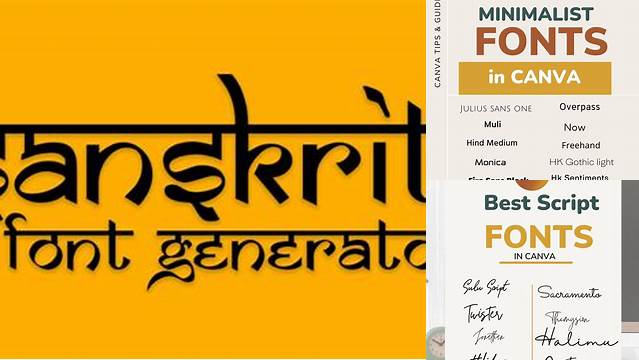
Sanskrit Fonts In Canva: A Comprehensive Guide
Hey guys! Ever wanted to add a touch of the ancient and mystical to your designs? Well, you're in the right place! We're diving deep into the world of Sanskrit fonts in Canva. Canva is an amazing tool for creating all sorts of designs, but sometimes finding the perfect font can be a bit of a quest. Don't worry, we've got you covered! This guide will walk you through everything you need to know about using Sanskrit fonts in your designs, so let's get started!
1. Introduction to Sanskrit and Its Significance
Sanskrit, often called the "language of the gods," is one of the oldest languages in the world and holds immense cultural and historical significance. Understanding its roots and importance can help you appreciate the beauty and power of using Sanskrit fonts in Canva. Think of it as adding a layer of depth and meaning to your creative projects. It’s not just about the visual appeal; it's about connecting with a rich heritage. The beauty of the language lies not only in its script but also in its philosophical and spiritual connotations. Using it thoughtfully can really elevate your design work, imbuing it with a sense of history and reverence. Remember, design is about communication, and choosing Sanskrit fonts can speak volumes about your project's message and intent. Let's explore the world of Sanskrit and see how its timeless appeal can transform your Canva creations!
2. Why Use Sanskrit Fonts in Your Designs?
Why should you even bother with Sanskrit fonts in Canva? Well, there are tons of reasons! For starters, they can add a unique and sophisticated touch to your designs. Imagine using a beautiful Sanskrit script for wedding invitations, spiritual posters, or even branding materials. It instantly elevates the aesthetic and adds a layer of cultural richness. Beyond the visual appeal, using Sanskrit fonts can also convey a sense of tradition, wisdom, and spirituality. This makes them perfect for projects related to yoga, meditation, philosophy, or anything with an Eastern influence. Plus, let’s be honest, they look incredibly cool! Think about the impact of a well-designed logo using a Sanskrit font – it's both eye-catching and meaningful. So, if you're looking to make your designs stand out and tell a story, exploring Sanskrit fonts is a fantastic option.
3. Overview of Canva and Its Font Library
Canva is a powerhouse when it comes to design tools, and its font library is no exception. It's packed with a huge variety of fonts, from classic serifs to modern sans-serifs, and everything in between. But what about Sanskrit fonts in Canva? That's where things get a little more interesting. While Canva might not have a dedicated category for Sanskrit, there are definitely options available if you know where to look. You can find some beautiful Devanagari fonts (the script used for Sanskrit) that can bring your designs to life. The key is to explore the library and use the search function effectively. Don’t just search for “Sanskrit”; try terms like “Devanagari” or look for fonts that have a more traditional, calligraphic feel. Also, Canva allows you to upload your own fonts, which opens up even more possibilities if you have specific Sanskrit fonts in mind. So, let’s dive into Canva’s font library and uncover the hidden gems for your next project!
4. Identifying Authentic Sanskrit Fonts
Okay, so you're ready to use Sanskrit fonts in Canva, but how do you make sure you're choosing authentic ones? It's a valid question! The Devanagari script is complex and has specific letterforms, so you want to avoid fonts that are poorly designed or inaccurate. A good starting point is to look for fonts labeled as "Devanagari" or those that explicitly mention Sanskrit support. Pay close attention to the character set – does it include all the necessary vowels, consonants, and diacritics? High-quality Sanskrit fonts will have a full range of characters to accurately represent the language. Another tip is to check the font designer or foundry. Reputable sources often provide detailed information about the font's creation and intended use. And, of course, if you're not sure, it’s always a good idea to consult with someone who is familiar with Sanskrit or Devanagari script. Choosing the right font ensures that your message is not only beautiful but also respectful and accurate.
5. Devanagari Script: The Key to Sanskrit Fonts
Let's talk about Devanagari, the script that's key to using Sanskrit fonts in Canva. Devanagari isn’t just a random set of characters; it's a beautiful and intricate writing system used for Sanskrit, Hindi, Marathi, and other Indian languages. Understanding the basics of Devanagari can really help you in selecting and using Sanskrit fonts effectively. The script is written from left to right, and the letters hang from a horizontal line at the top. Each character has a distinct shape and sound, and there are specific rules for how they combine to form words. When you're looking for Sanskrit fonts in Canva, keep an eye out for those that closely follow the traditional Devanagari structure. This will ensure that your text is legible and authentic. Learning a bit about the script itself can also enhance your appreciation for the font and the language it represents. So, embrace the beauty of Devanagari, and let it guide you to the perfect Sanskrit fonts for your designs!
6. Exploring Devanagari Fonts Available in Canva
Time to explore! What Devanagari fonts can you actually find in Canva? While Canva's font library might not be exclusively labeled with "Sanskrit fonts," there are several hidden gems that use the Devanagari script. To find them, try searching for terms like "Devanagari," "Hindi," or even specific font styles that resemble traditional scripts. Experiment with different keywords and browse through the results. You might be surprised at what you discover! Some fonts might be more suitable for headings, while others work better for body text. It’s all about finding the right fit for your project. Also, remember that Canva allows you to filter fonts by style (e.g., serif, sans-serif, script), which can help narrow down your search. Don't be afraid to try out different options and see how they look in your design. The more you explore, the better you'll become at identifying beautiful and authentic Sanskrit fonts in Canva.
7. Uploading Custom Sanskrit Fonts to Canva
Want even more flexibility? Good news! Canva lets you upload your own fonts, including Sanskrit fonts, which means you're not limited to the fonts already in their library. This is a game-changer if you have specific fonts you love or if you need a particular style for your project. To upload a font, you'll need to be a Canva Pro user (it's a paid subscription, but worth it for the extra features). Once you're on Canva Pro, simply go to your Brand Kit and look for the option to upload fonts. Make sure the font file is in a supported format (like TTF or OTF). After uploading, your font will be available to use in all your designs! This is a fantastic way to expand your creative possibilities and ensure you have the perfect Sanskrit fonts for every occasion. So, if you've got a collection of amazing Devanagari fonts, don’t hesitate to bring them into Canva!
8. Step-by-Step Guide to Adding Sanskrit Text in Canva
Okay, let's get practical. How do you actually add Sanskrit text in Canva? It's easier than you might think! First, you'll need to find or upload a suitable Devanagari font (as we discussed earlier). Once you've got your font ready, add a text box to your design in Canva. Now, here's the tricky part: you'll need a way to type in Sanskrit characters. Since most keyboards don't have Devanagari keys, you'll likely need to use a virtual keyboard or an online Sanskrit typing tool. Type your text in the tool, copy it, and then paste it into your Canva text box. Select the text and choose your Sanskrit font from the font menu. Voila! You've got Sanskrit text in your design. Remember to double-check for accuracy, especially if you're not familiar with the script. With a little practice, you'll be adding beautiful Sanskrit text to your Canva creations in no time!
9. Tips for Typing in Sanskrit Using Virtual Keyboards
Typing in Sanskrit can feel a bit daunting at first, especially if you're not used to the Devanagari script. But don't worry, virtual keyboards are here to save the day! There are tons of free online tools that provide virtual Devanagari keyboards. These keyboards display the Sanskrit characters, so you can simply click on them to type your text. The key is to find a virtual keyboard that you find comfortable and easy to use. Some keyboards follow a phonetic layout, where you type the sounds of the letters, and the tool converts them to Devanagari. Others have a more direct layout, showing the actual characters. Experiment with a few different options to see what works best for you. And remember, practice makes perfect! The more you use a virtual keyboard, the faster and more accurate you'll become. So, embrace these handy tools and start typing beautiful Sanskrit text in Canva with confidence.
10. Online Tools for Sanskrit Transliteration
Sometimes, you might have Sanskrit words or phrases written in a different script, like the Roman alphabet. That's where transliteration tools come in super handy! These online tools can convert text from one script to another, allowing you to easily turn Romanized Sanskrit into Devanagari, which you can then use in Sanskrit fonts in Canva. There are many free transliteration tools available online, and they're usually very simple to use. Just type or paste your text into the tool, select the desired input and output scripts, and hit the convert button. The tool will then generate the Devanagari equivalent of your text. Keep in mind that transliteration isn't always a perfect science, as some sounds and nuances might not translate directly. However, for most purposes, these tools are incredibly useful for getting your Sanskrit text into the right format for Canva. So, if you're working with Romanized Sanskrit, be sure to check out these handy transliteration tools!
11. Choosing the Right Sanskrit Font for Your Project
Choosing the right Sanskrit font can make or break your design. It's not just about picking something that looks pretty; it's about selecting a font that fits the tone and purpose of your project. Are you designing a yoga poster that needs a calming, spiritual vibe? Or a wedding invitation that calls for elegance and tradition? Different Sanskrit fonts have different personalities. Some are bold and modern, while others are delicate and calligraphic. Consider the overall aesthetic you're aiming for and choose a font that complements it. Think about the legibility of the font too – is it easy to read, especially for those who aren't familiar with the Devanagari script? Also, make sure the font you choose has all the characters you need for your text. Taking the time to select the perfect font will elevate your design and ensure your message is conveyed beautifully.
12. Combining Sanskrit Fonts with Other Font Styles
Mixing and matching fonts can be a fun way to add visual interest to your designs, but it's an art! When it comes to Sanskrit fonts in Canva, you'll want to be a bit strategic about how you combine them with other font styles. A good rule of thumb is to pair a decorative Sanskrit font with a simpler, more neutral font for the rest of your text. This helps the Sanskrit elements stand out without overwhelming the design. For example, you might use a calligraphic Devanagari font for a heading and then use a clean sans-serif font for the body text. Think about contrast – do the fonts complement each other, or do they clash? You want to create a harmonious balance. Also, consider the hierarchy of your text. Use different font styles to guide the reader's eye and emphasize key information. With a little experimentation, you can create stunning designs by combining the beauty of Sanskrit fonts with other font styles.
13. Best Practices for Using Sanskrit Fonts in Design
Using Sanskrit fonts in design requires a bit of finesse to ensure your message is conveyed effectively and respectfully. Here are some best practices to keep in mind: First and foremost, ensure accuracy. Double-check your text for any spelling or grammatical errors, especially if you're not fluent in Sanskrit. Incorrect text can not only look unprofessional but also misrepresent the meaning. Secondly, consider legibility. While decorative fonts can be beautiful, make sure your text is still easy to read, especially for longer passages. Choose a font size and spacing that allows the script to breathe. Thirdly, be mindful of context. Use Sanskrit fonts in projects where they're appropriate, such as designs related to yoga, meditation, spirituality, or Indian culture. Avoid using them in contexts where they might feel out of place or disrespectful. Finally, less is often more. Use Sanskrit sparingly to create impact, rather than overwhelming your design with too much of it. By following these best practices, you can harness the beauty of Sanskrit fonts to create stunning and meaningful designs.
14. Creating Logos with Sanskrit Fonts
Wanna create a logo that truly stands out? Consider using Sanskrit fonts in Canva! A logo with Sanskrit elements can convey a sense of tradition, wisdom, and spirituality, making it perfect for businesses or organizations in fields like yoga, wellness, or cultural arts. When designing a logo with Sanskrit, start by thinking about the message you want to convey. What are the core values of your brand? Choose a Sanskrit font that aligns with these values. A bold, modern font might be suitable for a contemporary yoga studio, while a more calligraphic font could be perfect for a traditional Ayurvedic practice. Keep the logo simple and memorable. A complex design can be difficult to reproduce and might not be easily recognizable. Use Sanskrit elements strategically, rather than overwhelming the design. And, as always, ensure accuracy and legibility. A well-designed logo with Sanskrit fonts can be incredibly powerful, creating a lasting impression and communicating your brand's unique identity.
15. Designing Invitations Using Sanskrit Typography
Looking to add a touch of elegance and tradition to your invitations? Sanskrit typography might be just what you need! Sanskrit fonts in Canva can bring a unique and sophisticated flair to wedding invitations, engagement announcements, or any special occasion that calls for a touch of cultural richness. When designing invitations with Sanskrit, consider the overall theme and style of your event. A traditional wedding might call for a more ornate, calligraphic font, while a modern celebration could benefit from a cleaner, more contemporary style. Use Sanskrit for key elements, such as the names of the couple or a meaningful quote. Pair it with a complementary font for the rest of the text to create a balanced design. Pay attention to spacing and layout to ensure the invitation is easy to read and visually appealing. And, of course, double-check all your text for accuracy. Invitations with Sanskrit typography can be truly stunning, leaving a lasting impression on your guests and setting the tone for a memorable event.
16. Sanskrit Fonts for Social Media Graphics
In the crowded world of social media, standing out is key! Using Sanskrit fonts in Canva can help you create eye-catching graphics that grab attention and convey a sense of authenticity. Whether you're promoting a yoga class, sharing an inspirational quote, or announcing a cultural event, Sanskrit typography can add a unique touch to your social media presence. When designing social media graphics, consider the platform you're using. Different platforms have different size and resolution requirements, so make sure your design is optimized for each one. Use Sanskrit sparingly to highlight key messages or add visual interest. Combine it with bold colors, striking images, and clear calls to action to create graphics that convert. And remember, legibility is crucial, especially on small screens. Choose a Sanskrit font that's easy to read, even at a smaller size. With a little creativity, you can use Sanskrit fonts to create social media graphics that are both beautiful and effective.
17. Incorporating Sanskrit Quotes into Your Designs
Adding Sanskrit quotes to your designs is a wonderful way to infuse them with wisdom, inspiration, and cultural depth. Sanskrit fonts in Canva can bring these quotes to life, making them visually appealing and impactful. When choosing a quote, consider the message you want to convey and the overall tone of your design. Is it a quote about peace, love, strength, or enlightenment? Select a font that reflects the essence of the quote. A graceful, flowing font might be perfect for a quote about serenity, while a bolder font could be used for a message about resilience. Pay attention to the layout and spacing of the quote to ensure it's easy to read and visually balanced. You can use the quote as a central element of your design or incorporate it as a subtle accent. And, of course, make sure you have an accurate translation of the quote so your audience can understand its meaning. By thoughtfully incorporating Sanskrit quotes into your designs, you can create pieces that are both beautiful and meaningful.
18. Designing Posters with Sanskrit Typography
Posters are a fantastic way to communicate a message visually, and Sanskrit fonts in Canva can add a unique flair to your poster designs. Whether you're promoting a cultural event, advertising a workshop, or creating an inspirational piece of art, Sanskrit typography can help your poster stand out. When designing a poster, think about the target audience and the message you want to convey. Choose a Sanskrit font that reflects the tone and style of your poster. A bold, eye-catching font might be perfect for grabbing attention, while a more elegant font could be used for a sophisticated event. Use Sanskrit for key elements, such as the title or a tagline, and pair it with a complementary font for the rest of the text. Consider the overall layout and visual hierarchy of your poster. Use colors, images, and spacing to create a balanced and impactful design. And, as always, ensure your text is accurate and legible. With the right combination of Sanskrit fonts and design elements, you can create posters that are both visually stunning and highly effective.
19. Using Sanskrit Fonts for Spiritual and Wellness Content
If you're creating content related to spirituality, yoga, meditation, or wellness, Sanskrit fonts in Canva can be a powerful tool for enhancing your message. Sanskrit, as an ancient and sacred language, naturally resonates with these themes. When using Sanskrit fonts in this context, consider the overall tone and style of your content. A calming, peaceful font might be ideal for meditation guides or yoga class announcements, while a more vibrant font could be used for content related to Ayurveda or holistic healing. Incorporate Sanskrit mantras, quotes, or affirmations into your designs to add depth and meaning. Pay attention to the visual harmony of your content. Use colors, images, and layout to create a serene and inviting atmosphere. And, of course, ensure accuracy and respect when using Sanskrit text. By thoughtfully incorporating Sanskrit fonts into your spiritual and wellness content, you can create pieces that are both visually appealing and deeply resonant.
20. Avoiding Common Mistakes When Using Sanskrit Fonts
Using Sanskrit fonts in Canva can be a wonderful way to enhance your designs, but it's important to avoid common mistakes that can detract from your message or even be unintentionally disrespectful. One of the biggest mistakes is using inaccurate or poorly designed fonts. Make sure the font you choose accurately represents the Devanagari script and includes all the necessary characters. Another common mistake is using Sanskrit fonts in inappropriate contexts. Sanskrit is a sacred language with deep cultural significance, so it's best used in designs where it feels natural and respectful. Avoid using it in designs that are frivolous or unrelated to Indian culture or spirituality. Overusing Sanskrit is another pitfall. A little can go a long way, so use it strategically to highlight key elements, rather than overwhelming your design. And, of course, always double-check your text for spelling and grammatical errors. By being mindful of these common mistakes, you can ensure that your use of Sanskrit fonts is both beautiful and appropriate.
21. The Psychology of Sanskrit Typography
Ever wondered how typography affects the way we perceive a message? Sanskrit fonts in Canva, like all fonts, have a psychological impact on viewers. The flowing, intricate nature of the Devanagari script often evokes feelings of tradition, wisdom, and spirituality. This is why Sanskrit fonts are commonly used in designs related to yoga, meditation, and Indian culture. The elegance and grace of the script can also convey a sense of sophistication and refinement, making it suitable for high-end brands or events. However, the psychological impact of a font can also depend on the specific style. A bold, modern Sanskrit font might project strength and confidence, while a delicate, calligraphic font could evoke feelings of peace and serenity. When choosing Sanskrit fonts for your designs, consider the emotions and associations you want to create. Think about how the font will make your audience feel, and select one that aligns with your message and brand identity.
22. Resources for Learning More About Sanskrit and Devanagari
Want to dive deeper into the world of Sanskrit and Devanagari? There are tons of fantastic resources available online and in libraries! Learning more about the language and script can greatly enhance your appreciation for Sanskrit fonts in Canva and help you use them more effectively. Online, you can find websites and apps that offer Sanskrit lessons, pronunciation guides, and transliteration tools. YouTube is also a treasure trove of tutorials and lectures on Sanskrit grammar and literature. For a more structured approach, consider taking an online course or joining a local Sanskrit class. Books are another excellent resource. Look for introductory Sanskrit textbooks, dictionaries, and guides to the Devanagari script. You can also find books that explore the history and cultural significance of Sanskrit. By investing time in learning more about Sanskrit and Devanagari, you'll not only expand your knowledge but also gain a deeper understanding of the beauty and power of this ancient language.
23. Inspiration: Examples of Designs Using Sanskrit Fonts
Need some inspiration for using Sanskrit fonts in Canva? Let's take a look at some examples of designs that beautifully incorporate Sanskrit typography. Think about yoga studio logos that feature elegant Devanagari characters, creating a sense of calm and balance. Or wedding invitations that use calligraphic Sanskrit fonts to add a touch of tradition and sophistication. Social media graphics promoting spiritual retreats often use Sanskrit quotes to convey wisdom and inspiration. Posters for cultural events might incorporate bold Sanskrit typography to grab attention and celebrate heritage. Online, you can find countless examples of stunning designs that showcase the versatility of Sanskrit fonts. Pay attention to how different fonts are used in different contexts, and consider the overall impact of the typography on the design. By studying these examples, you'll gain a better understanding of how to use Sanskrit fonts effectively and creatively in your own projects.
24. Future Trends in Sanskrit Typography
What does the future hold for Sanskrit typography? As design trends evolve, so too will the way we use and perceive Sanskrit fonts. We're likely to see a greater integration of Sanskrit into digital designs, driven by the increasing popularity of yoga, meditation, and Eastern-inspired aesthetics. Modern Sanskrit fonts that blend traditional elements with contemporary styles may become more prevalent. We might also see more innovative uses of Sanskrit in branding, with businesses seeking to convey a sense of authenticity and spirituality. The rise of AI and machine learning could also lead to new tools and technologies that make it easier to generate and manipulate Sanskrit fonts. As interest in Sanskrit language and culture continues to grow, we can expect to see a vibrant future for Sanskrit typography, with designers pushing the boundaries of creativity and expression.
25. The Importance of Respectful Use of Sanskrit Fonts
It's crucial to emphasize the importance of using Sanskrit fonts respectfully. Sanskrit is a sacred language with deep cultural and historical significance, and it's essential to approach its use with sensitivity and awareness. Avoid using Sanskrit fonts in designs that could be considered offensive or disrespectful, such as those that promote violence, hatred, or cultural appropriation. Always ensure that the Sanskrit text you use is accurate and grammatically correct. Misspelled words or incorrect grammar can not only look unprofessional but also misrepresent the meaning. If you're unsure about the correct usage of a Sanskrit word or phrase, consult a knowledgeable source. Consider the context in which you're using Sanskrit fonts. Are they appropriate for the intended audience and purpose? By using Sanskrit fonts respectfully, you can honor the language and its rich heritage, while also creating designs that are both beautiful and meaningful.
26. Troubleshooting Common Issues with Sanskrit Fonts in Canva
Sometimes, things don't go quite as planned. You might encounter some issues when using Sanskrit fonts in Canva, but don't worry, there are solutions! One common problem is that some fonts might not display all the characters correctly. This can happen if the font is incomplete or if Canva doesn't fully support the character set. Try using a different font or uploading a font that you know is complete. Another issue can be with text rendering. Sometimes, the spacing or alignment of Sanskrit text might look odd in Canva. Experiment with different text settings, such as line height and letter spacing, to see if you can improve the appearance. If you're having trouble typing in Sanskrit, double-check that you're using a virtual keyboard or transliteration tool correctly. And, of course, if you're still stuck, don't hesitate to reach out to Canva's support team for help. With a little troubleshooting, you can overcome most common issues and create stunning designs with Sanskrit fonts.
27. Advanced Techniques for Manipulating Sanskrit Text in Canva
Ready to take your Sanskrit typography skills to the next level? Canva offers several advanced techniques for manipulating text that can help you create truly unique designs. You can experiment with text effects, such as shadows, outlines, and glows, to add depth and dimension to your Sanskrit fonts. Try using different text layouts and alignments to create visual interest. You can also combine text with other design elements, such as shapes, images, and illustrations, to create dynamic compositions. Canva's text curving tool is particularly useful for creating circular or curved Sanskrit text, which can be perfect for logos or decorative elements. Don't be afraid to play around with transparency and blending modes to create subtle or dramatic effects. By mastering these advanced techniques, you can transform simple Sanskrit fonts into captivating works of art.
28. The Ethical Considerations of Using Sanskrit Fonts
It's important to consider the ethical implications of using Sanskrit fonts in your designs. As with any cultural element, it's crucial to use Sanskrit responsibly and avoid cultural appropriation. Avoid using Sanskrit fonts in ways that trivialize or misrepresent the language or its cultural context. Be mindful of the symbolism and meaning associated with Sanskrit words and phrases, and use them appropriately. If you're creating designs for a specific cultural group or community, consider consulting with members of that community to ensure your designs are respectful and accurate. Avoid using Sanskrit fonts for purely commercial purposes without understanding their cultural significance. Instead, strive to use them in ways that celebrate and honor the richness of Sanskrit language and culture. By being mindful of these ethical considerations, you can use Sanskrit fonts in a way that is both beautiful and respectful.
29. The Role of Sanskrit in Modern Design
Sanskrit, despite its ancient origins, has a significant role to play in modern design. Sanskrit fonts in Canva offer a unique way to add a touch of tradition, spirituality, and sophistication to contemporary designs. As the world becomes increasingly interconnected, there's a growing appreciation for cultural diversity and heritage. Sanskrit, with its rich history and philosophical depth, can resonate with audiences seeking authenticity and meaning. Modern designers are finding innovative ways to incorporate Sanskrit into a wide range of projects, from branding and marketing to web design and social media graphics. The elegance and beauty of the Devanagari script can elevate the visual appeal of a design while also conveying a sense of timeless wisdom. As long as it's used respectfully and thoughtfully, Sanskrit has the power to enrich and enhance modern design aesthetics.
30. Conclusion: Mastering Sanskrit Fonts in Canva
So, guys, we've journeyed through the fascinating world of Sanskrit fonts in Canva! From understanding the significance of Sanskrit and Devanagari to exploring Canva's font library and mastering advanced design techniques, you're now equipped to create stunning and meaningful designs with Sanskrit typography. Remember, it's not just about the visual appeal; it's about using Sanskrit respectfully and thoughtfully, appreciating its rich history and cultural significance. Experiment with different fonts, layouts, and design elements to discover your unique style. And don't be afraid to push the boundaries of creativity while honoring the beauty of this ancient language. With a little practice and passion, you'll be creating incredible designs with Sanskrit fonts that captivate and inspire your audience. Happy designing!